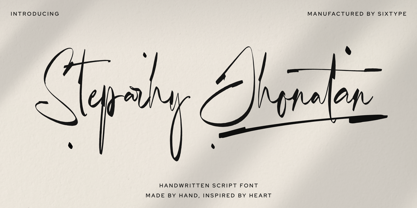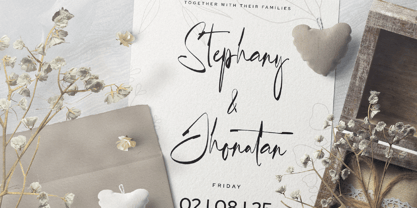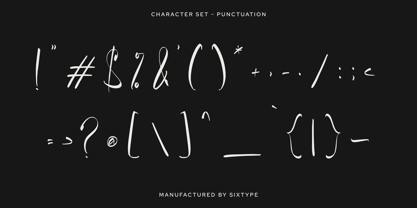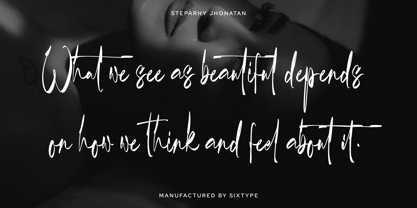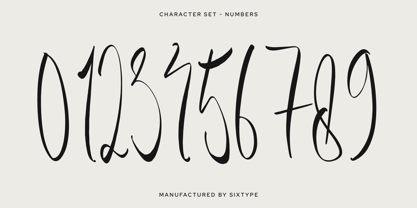
Steparhy Jhonatan
by Sixtype Foundry
The Steparhy Jhonatan Font Family was designed by Ilham Aji Saputro and published by Sixtype Foundry. Steparhy Jhonatan contains 1 styles. More about this family
Steparhy Jhonatan Script – Handwritten Font Made by Hand, Inspired by Heart
Introduce a touch of elegance and emotion with Steparhy Jhonatan Script, a handcrafted script font designed to bring personal charm to every word. With its expressive strokes and refined ligatures, this font is perfect for projects that need a human touchwhether it’s for branding, quotes, wedding invites, social media, or any design that deserves to feel heartfelt and handwritten.
Crafted with care and attention to detail, Steparhy Jhonatan Script flows naturally across the page, combining a modern script style with artistic imperfection. Every letter tells a story—made by hand, inspired by heart.
Designers: Ilham Aji Saputro
Foundry: Sixtype Foundry